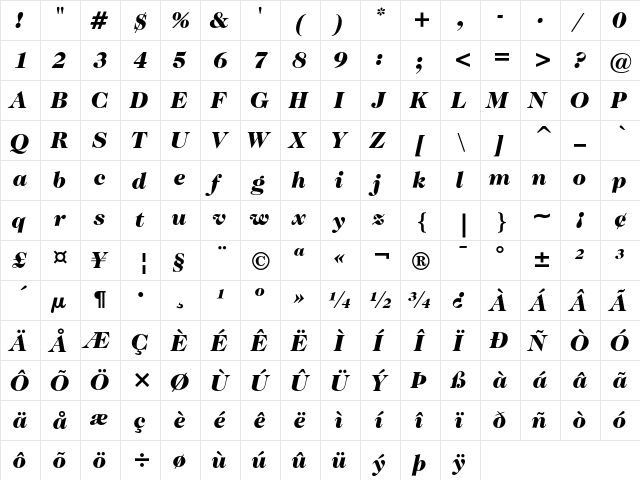
ITC Caslon No.224 Black Italic
Design Context for ITC Caslon No.224 Typeface
ITC Caslon No.224 takes a measured approach to typography — its balanced proportions and neutral character make it a reliable workhorse for both digital and print work. The slanted form adds forward momentum and visual energy.
Pro Tip: Try ITC Caslon No.224 for annotation and caption copy alongside an upright companion — the contrast in angle creates a dynamic but ordered typographic system.